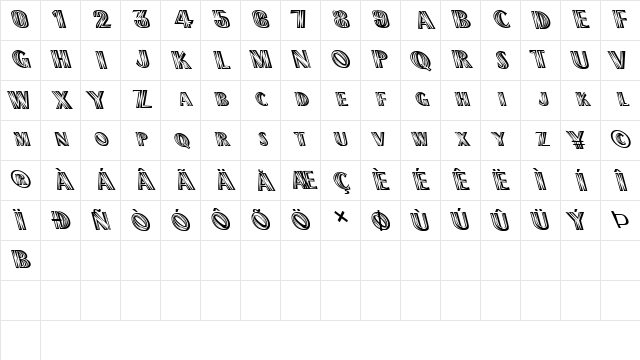
Complete FZ UNIQUE 2 LEFTY Heavy glyph index. Displaying only characters natively supported by FZ UNIQUE 2 LEFTY Heavy font.
FZ UNIQUE 2 LEFTY is a composed and adaptable typeface that performs quietly and consistently across a wide range of design contexts.